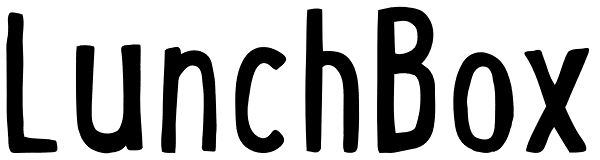
LunchBox
LunchBox is a uniquely hand-drawn typeface that gives infinite customizable options and a fully authentic look. Using Lunchbox’s OpenType features gives access to over 1,500 different characters. Contextual alternatives give each letter 4 different...